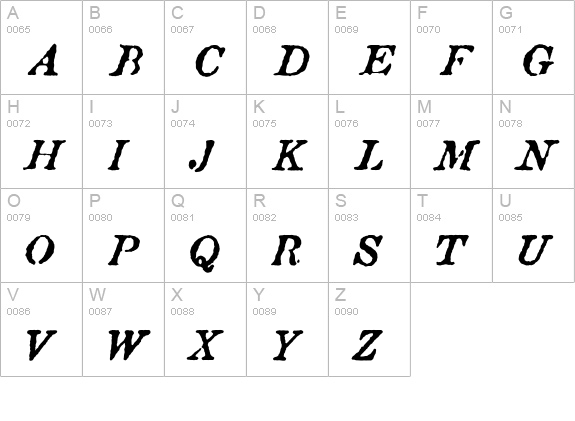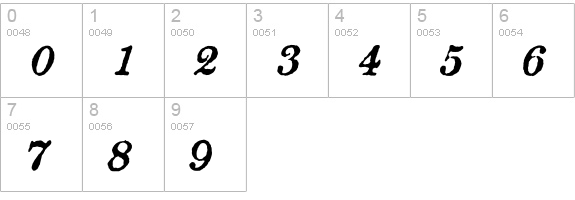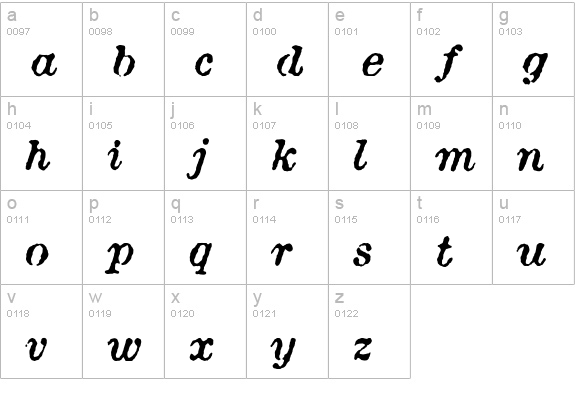
AtticAntique-Italic Font Details
AtticAntique-Italic is a distinctive, italic variant in the AtticAntique typeface family \xE2\x80\x94 well suited to design and typography projects.
AtticAntique-Italic font exudes a timeless charm and elegance, reminiscent of antique typography found in the hidden treasures of an old attic. Its graceful italic style adds a touch of sophistication to any design project, making it perfect for invitations, signage, or branding materials that require a touch of vintage flair. But the best part? AtticAntique-Italic font is completely free for personal and commercial use! You can download this exquisite typeface at FontsMarket.com and elevate your designs with its classic beauty. Don't miss out on the opportunity to add a touch of nostalgia and refinement to your creations with AtticAntique-Italic font.